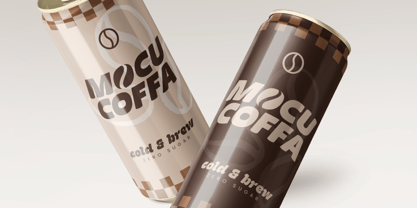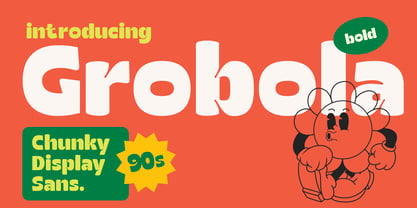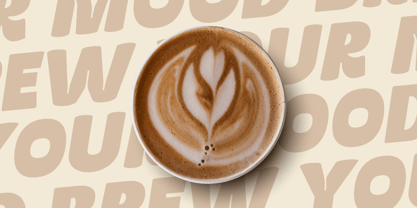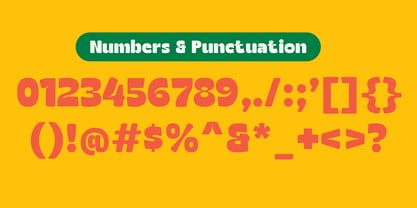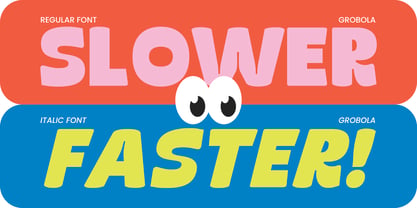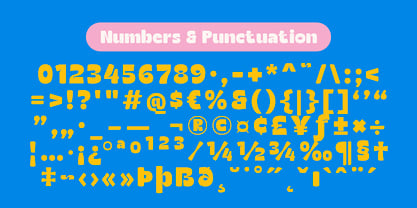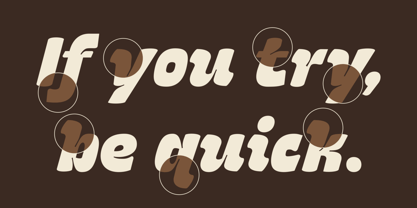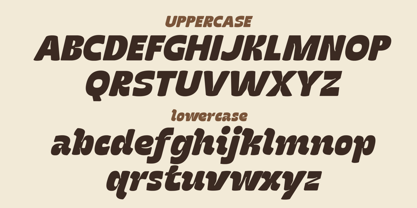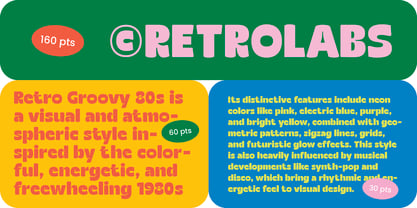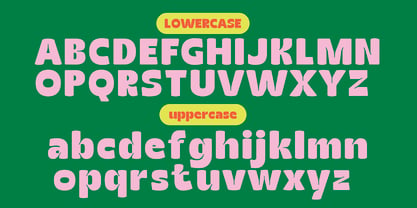
Grobola
Grobola is a chunky display sans serif inspired by bold '90s graphics, retro cartoons, playful branding, and nostalgic pop culture. Built with oversized curves, soft corners, and thick letterforms, Grobola delivers a fun, energetic personality that instantly grabs attention while maintaining excellent readability.
Designed for designers who want to create memorable visuals, Grobola is perfect for logos, food packaging, kids' brands, social media graphics, merchandise, posters, and eye-catching headlines. Its cheerful character and bold presence make every word feel friendly, expressive, and full of personality.
Whether you're building a playful brand identity or creating standout marketing materials, Grokola adds a dose of retro charm with a fresh modern twist.